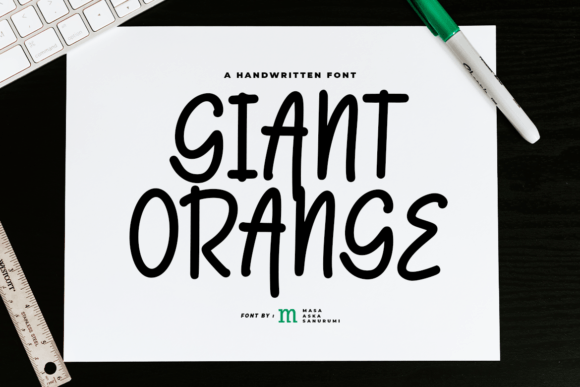
Embark on a Typographic Odyssey with Giant Oranges: The Alluring Script Font for Visionary Creatives
In the vast realm of typography, there exists a font that captivates the senses and ignites the imagination—Giant Oranges. This enchanting script font, meticulously crafted by the artistic hand of Masa Aska Sanurumi, is not merely a collection of letters; it's an artistic masterpiece, a symphony of strokes and curves that dances across the page, leaving a trail of visual delight in its wake.
Giant Oranges is more than just a font; it's an experience. Its fluid lines evoke a sense of elegance and sophistication, while its playful charm adds a touch of whimsy and delight. Each letter is a work of art, meticulously designed to complement and enhance the words it forms.
Step into the World of Giant Oranges and Discover:
- The Allure of Artistic Expression: Giant Oranges is not just a font; it's an expression of creativity, a vessel for your unique artistic vision. Let your imagination soar as you craft designs that captivate and inspire, leaving an unforgettable impression on your audience.
- The Power of Versatility: With Giant Oranges, the possibilities are limitless. Its versatile nature makes it the perfect choice for an array of applications, from personal branding and social media to invitations and posters. Whether you're designing a stunning logo, creating eye-catching headlines, or crafting heartfelt greeting cards, Giant Oranges will elevate your projects to new heights.
- The Essence of Elegance and Playfulness: Giant Oranges effortlessly blends elegance and playfulness, creating a font that is both sophisticated and enchanting. Its graceful strokes and whimsical curves dance together in perfect harmony, adding a touch of magic to any design.
- The Joy of Creative Exploration: Giant Oranges invites you to embark on a journey of creative exploration, empowering you to push the boundaries of your imagination. Experiment with different color palettes, sizes, and styles to create unique and captivating designs that reflect your personal aesthetic.
Unleash Your Creative Potential with Giant Oranges: The Script Font That Inspires
Giant Oranges is more than just a font; it's an invitation to embark on a creative odyssey, a journey into the realm of typography where imagination reigns supreme. Its versatile nature, captivating beauty, and endless possibilities make it the perfect choice for designers, artists, and creatives seeking to leave a lasting impression on the world.
Embrace the allure of Giant Oranges and unlock the full potential of your creative vision. Let your designs blossom into masterpieces, captivating your audience and leaving them in awe. Seize this opportunity to elevate your projects to new heights and create works of art that resonate with beauty, elegance, and playfulness.